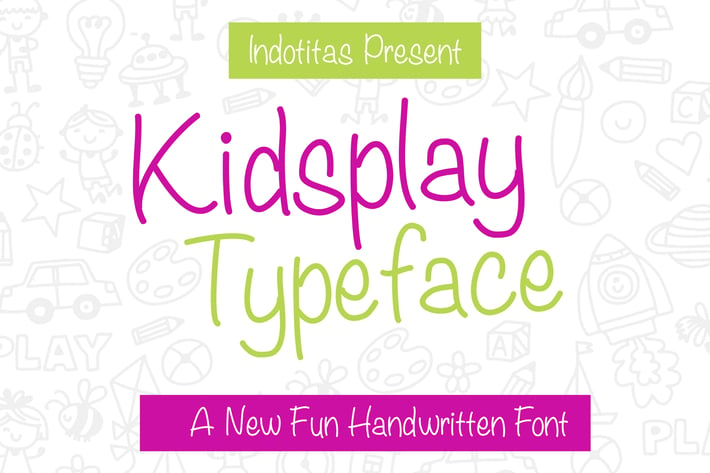
Kidsplay Typeface
Kidsplay Typeface is a new font from Indotitas, this font is designed with a fun atmosphere to bring funny and fun feeling in all its forms, as it looks childish.
This font also carries the theme clean and simple. This font is perfect for something that carries cartoon themes, comic, children's books, funny greeting cards, food package designs, simple logotype or abstract images and many more
- ALL-CAPS A-Z and a-z
- Numbers
- Symbols
- Ligature support